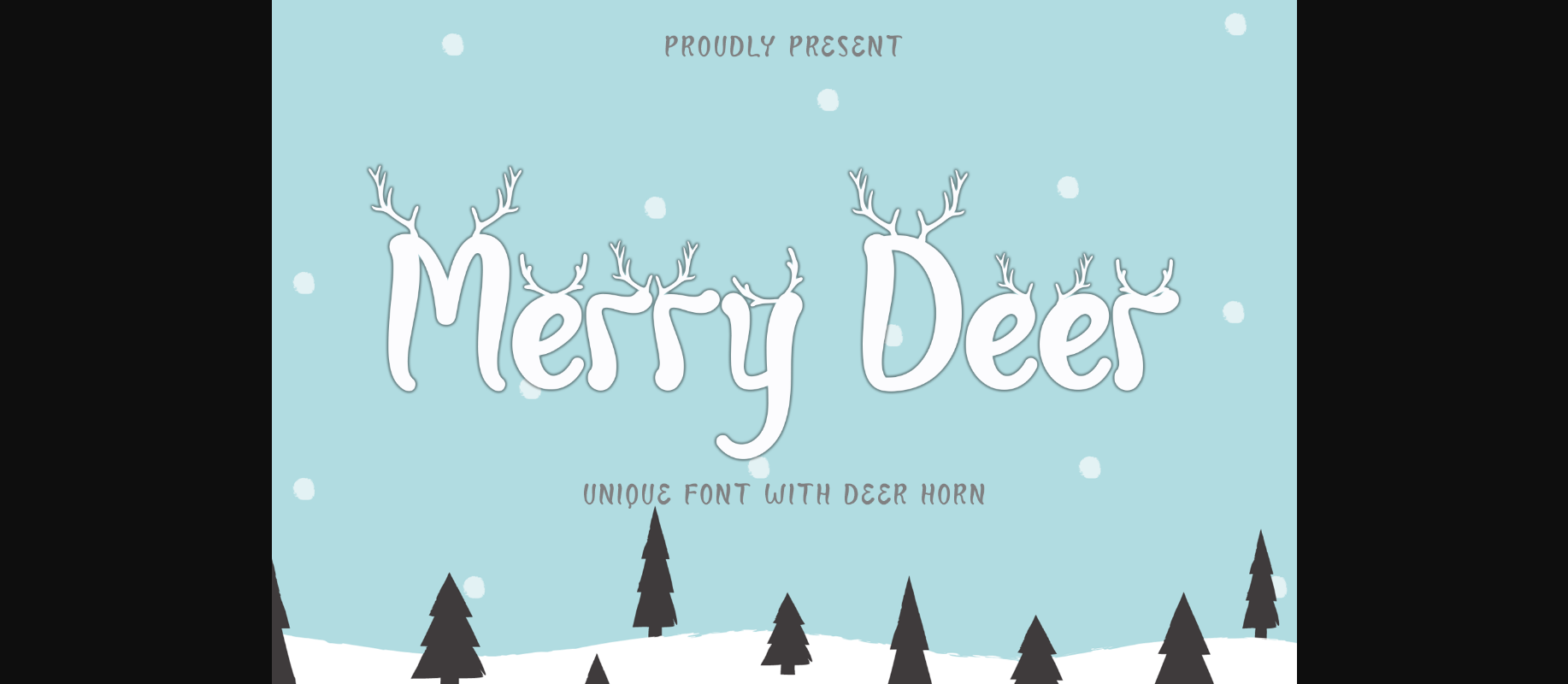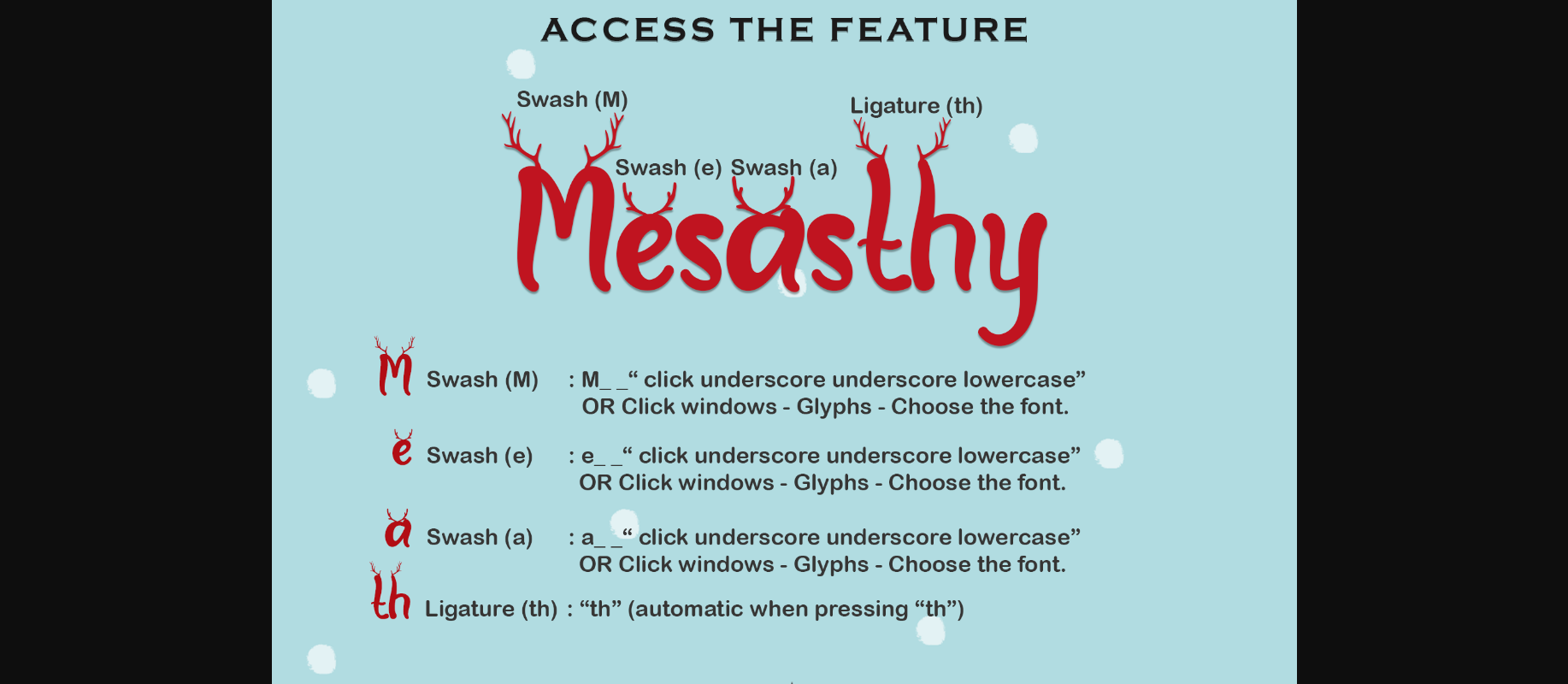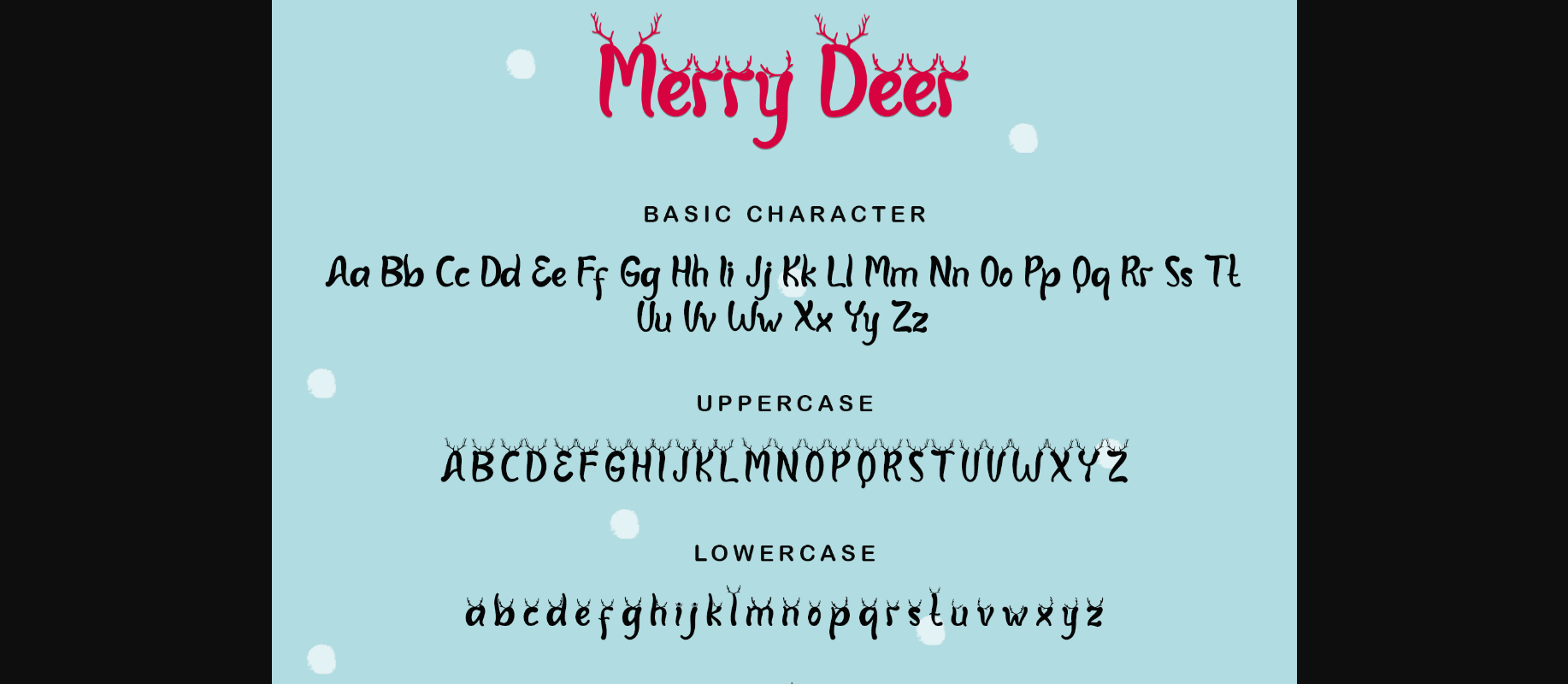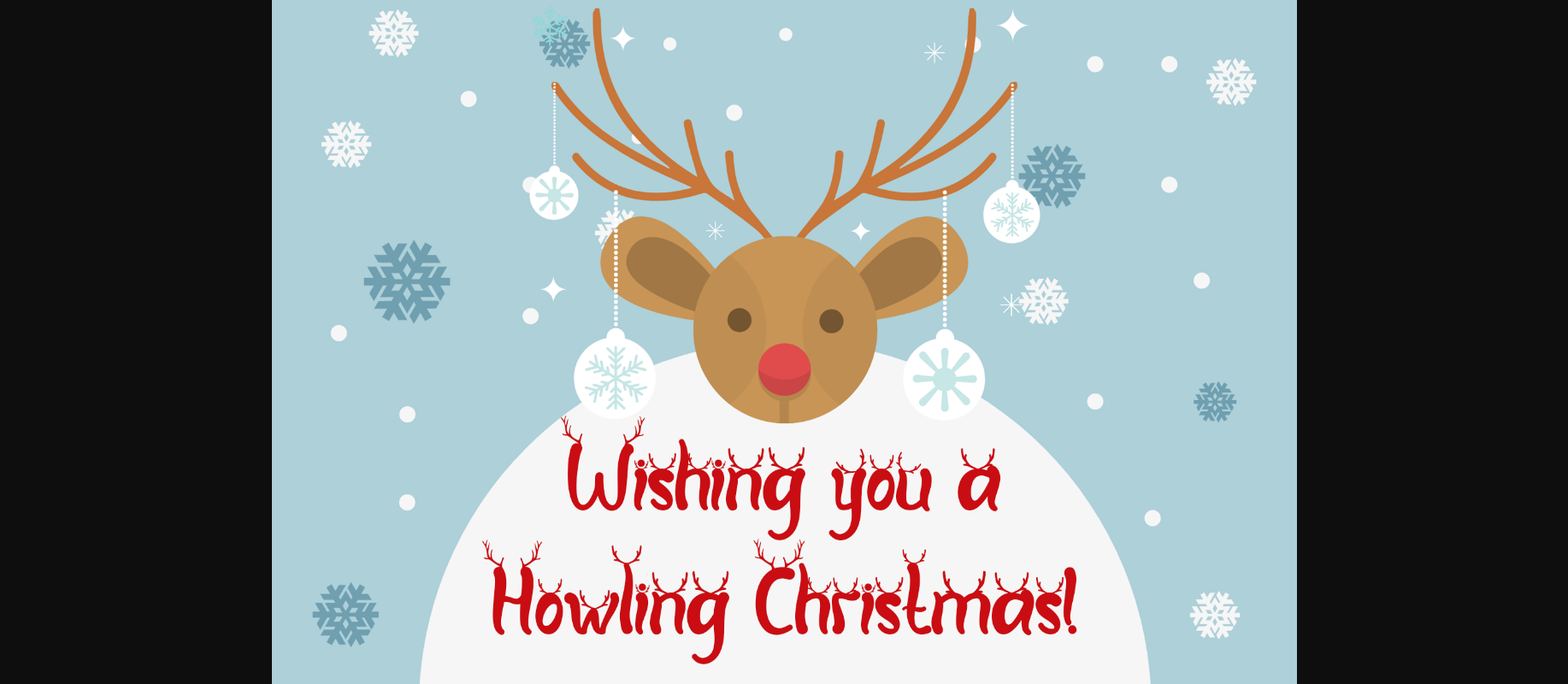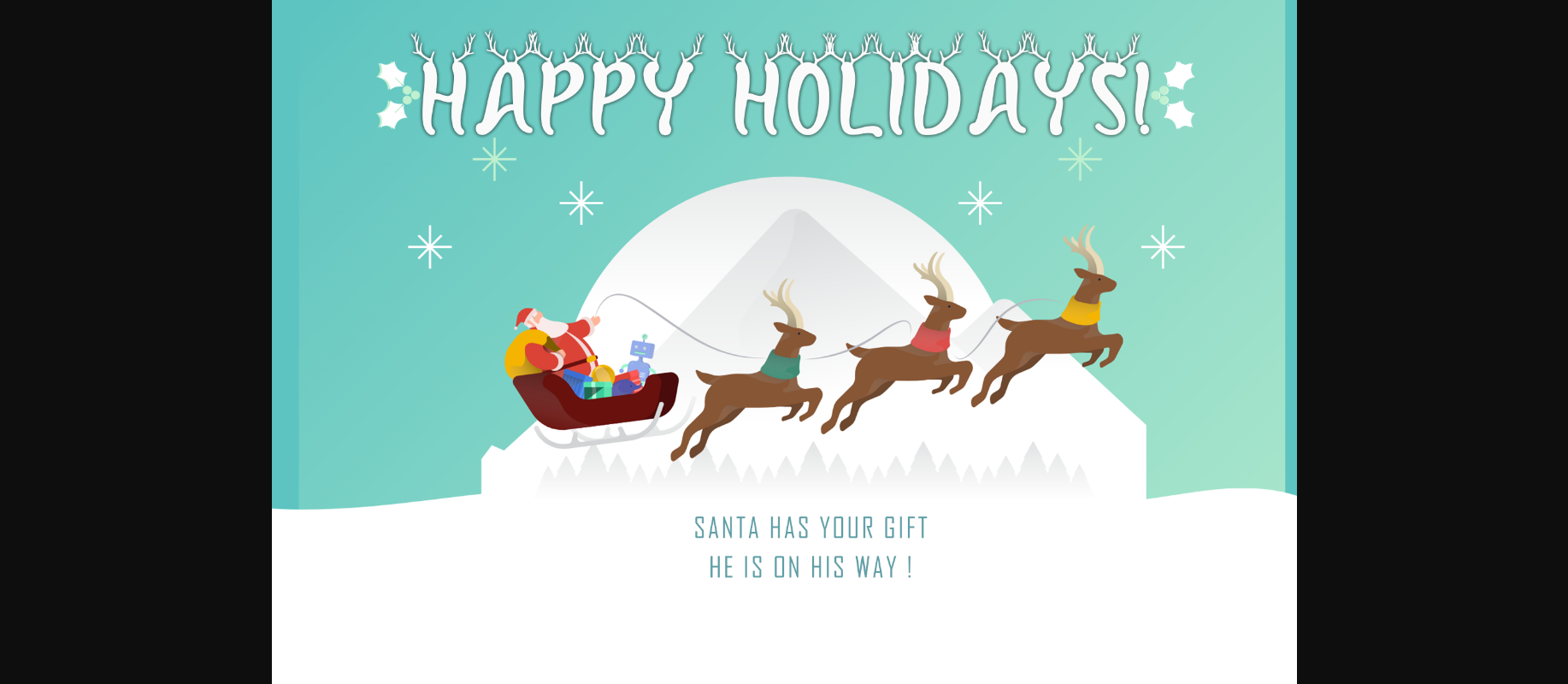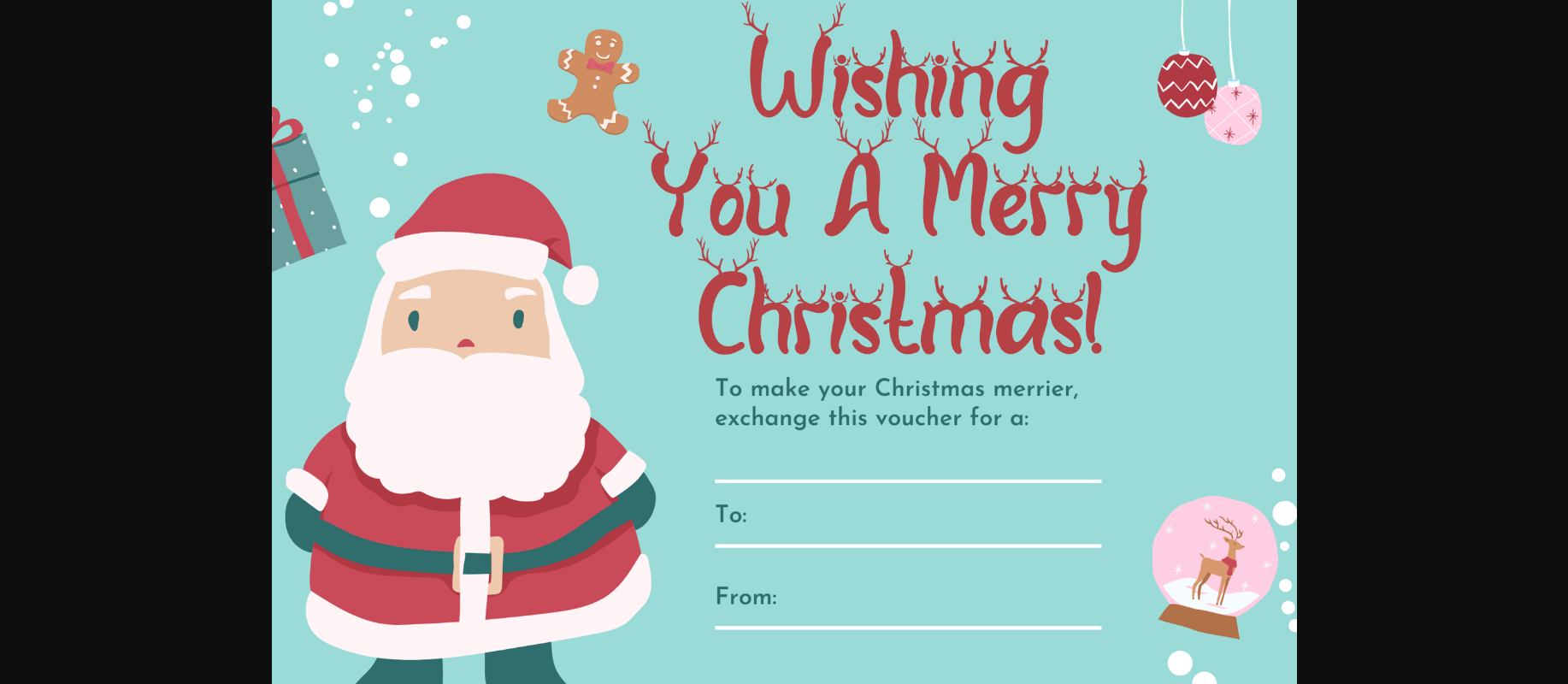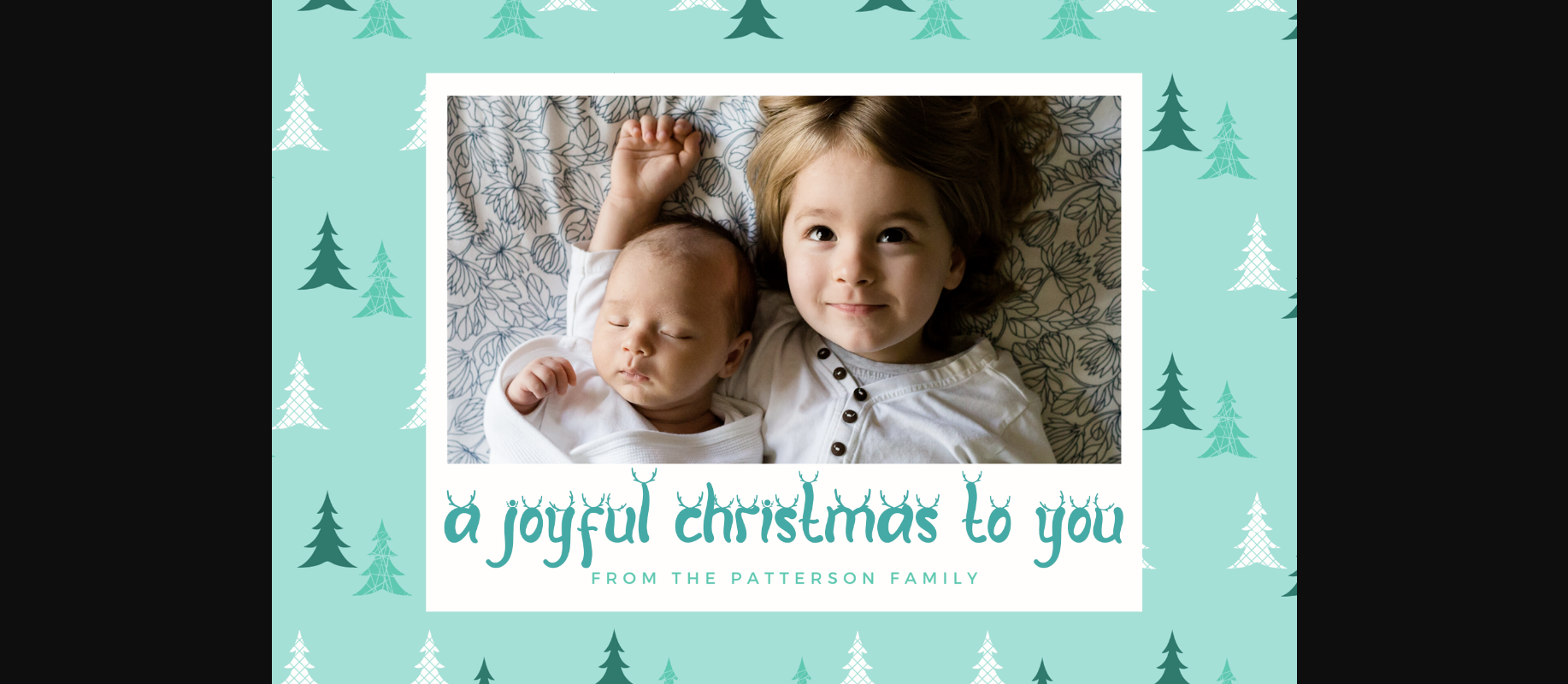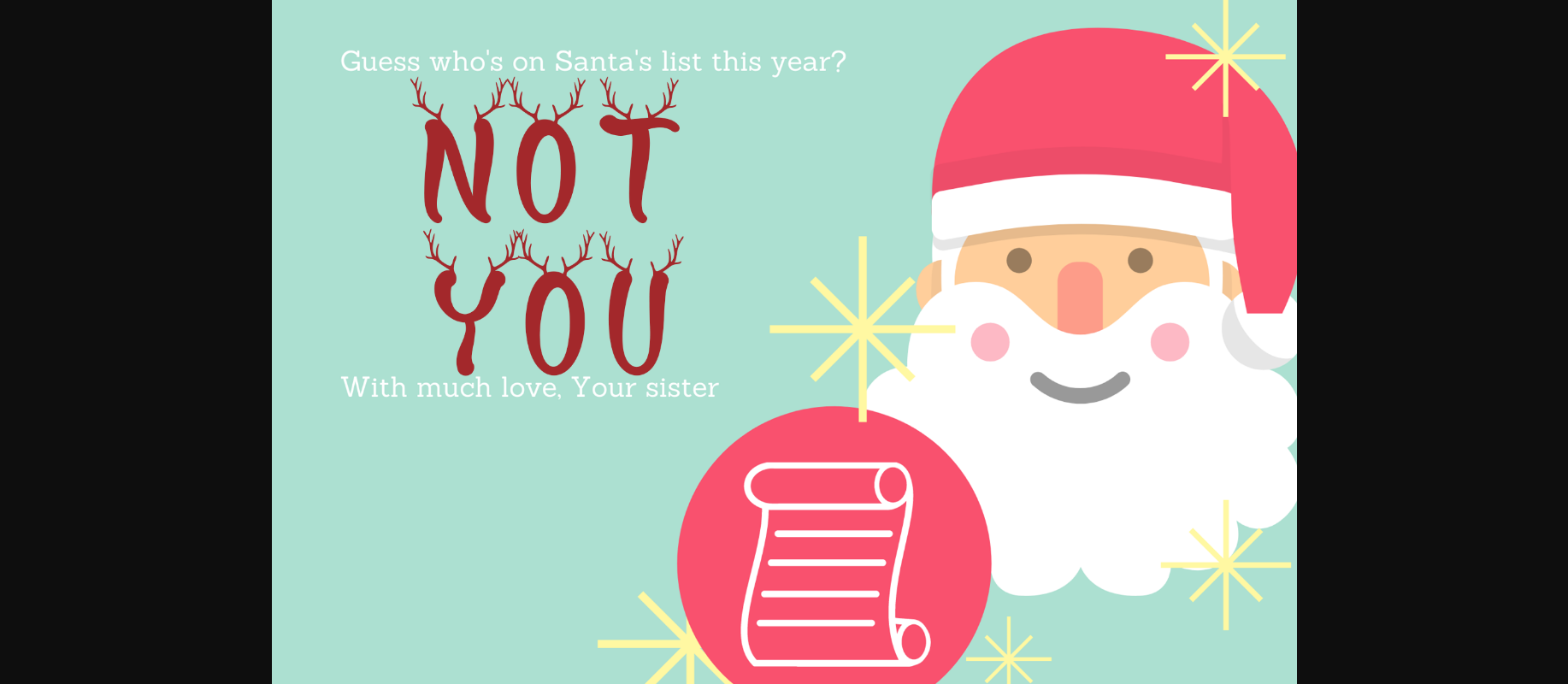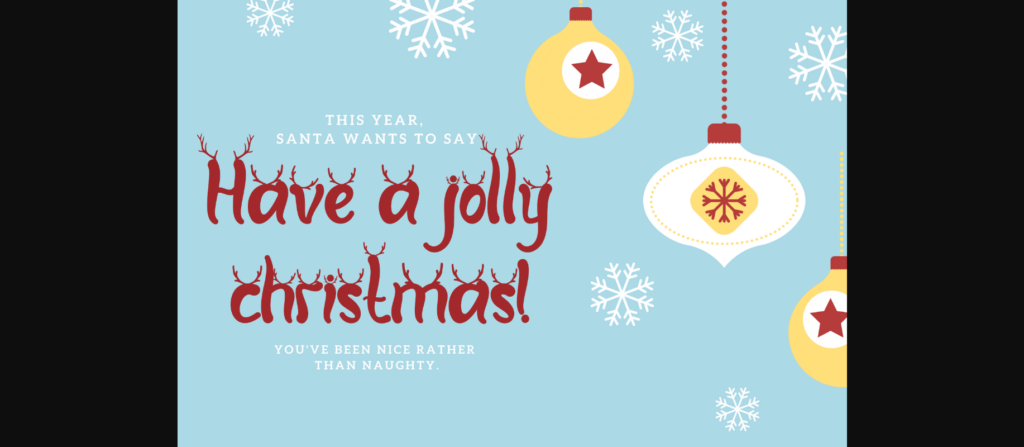
Merry Deer Font
About Merry Deer Font
Merry Deer is a fun, chic and trendy decorative font. This font is PUA encoded which means you can access all of the glyphs and swashes with ease!
Fall in love with its incredibly sweet style and use it to create spectacular designs!